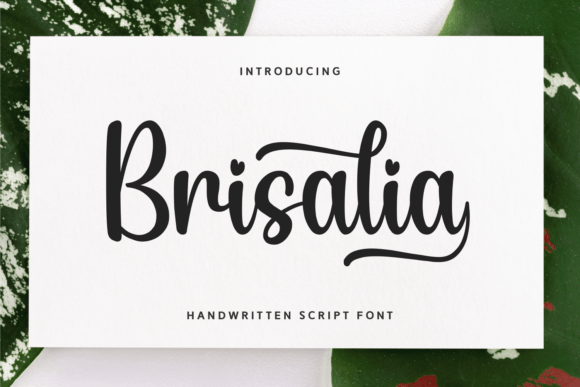
The Sweet and Playful Brisalia Font: A Designer’s New Best Friend
I’ll never forget the time I was working on a project for a children’s brand, and I just couldn’t find the right font to match their bubbly personality. The client wanted something playful, yet elegant, and I was determined to deliver. That’s when I stumbled upon the Brisalia font, and it was love at first sight! 💕
With its sweet and playful handwritten style, Brisalia is made with a bubbly script and heart-topped characters that instantly captured the essence of the brand. It’s a perfect match for kids’ branding, social media graphics, and personalized gifts. In this article, I’ll share my honest review of Brisalia, a practical guide on how to use it, and some similar font alternatives you might love.
My Honest Review of Brisalia Font
• ✅ The playful and bubbly script style that’s perfect for kids’ branding and social media graphics
• ✅ The heart-topped characters that add a touch of whimsy and charm
• ✅ The font’s versatility – it can be used for both digital and print projects
• ✅ The OpenType features that allow for easy customization and styling
While Brisalia is an amazing font, there are a few things to keep in mind:
• 🤔 The font might not be suitable for very formal or professional projects, as it’s quite playful and informal
• ⚠️ Some characters, like the uppercase letters, can be a bit quirky and might not work well in all contexts
The Story Behind Brisalia Font
Brisalia was designed by a team of creatives who wanted to create a font that would bring a touch of whimsy and charm to design projects. Inspired by the sweetness of childhood and the playfulness of handwritten scripts, Brisalia was born. The font’s designer aimed to create a typeface that would be both elegant and playful, perfect for a wide range of creative projects.
Q: What is Brisalia font best used for?
A: Brisalia font is best used for kids’ branding, social media graphics, and personalized gifts. Its playful and bubbly style makes it perfect for creative projects that require a touch of whimsy.